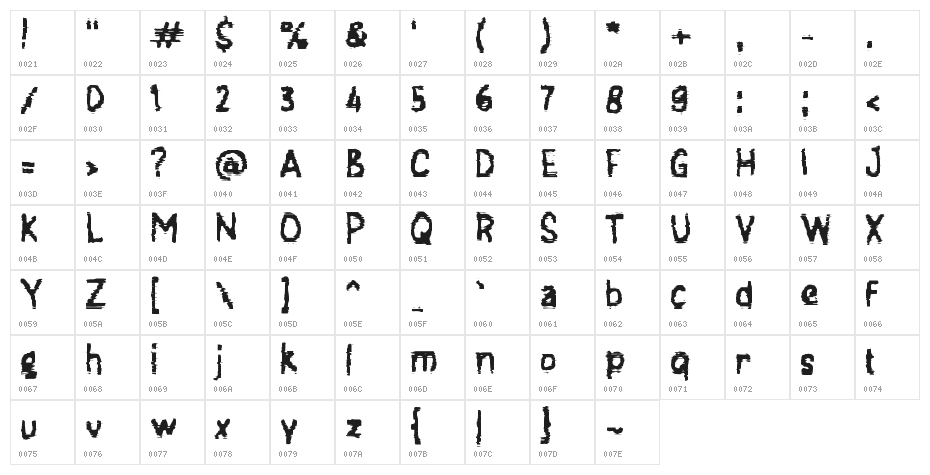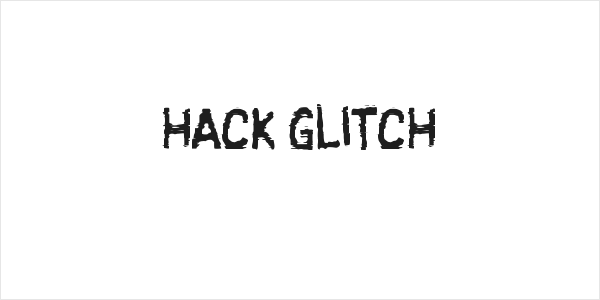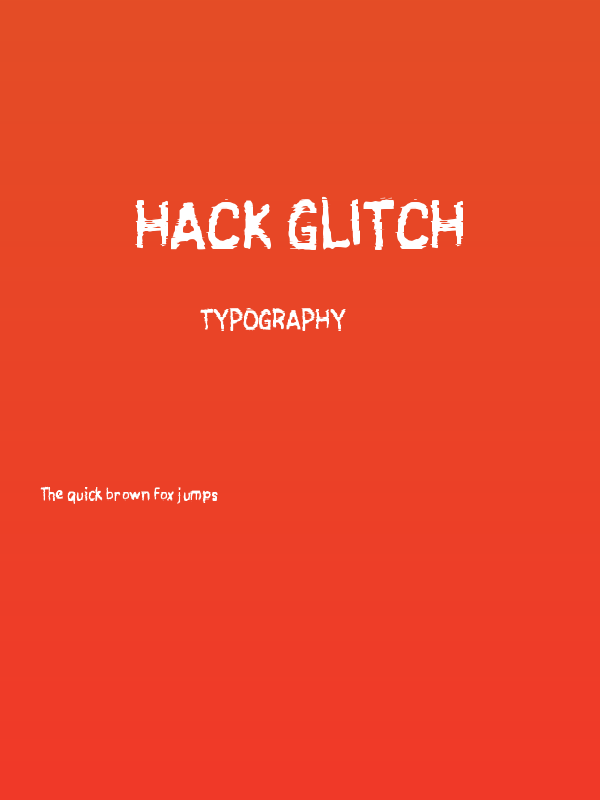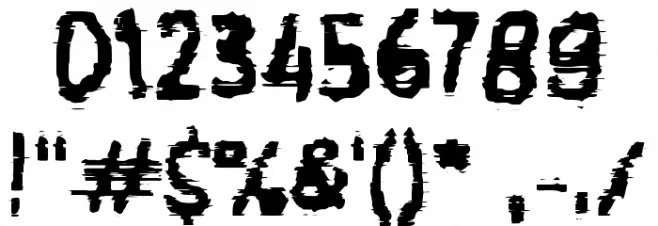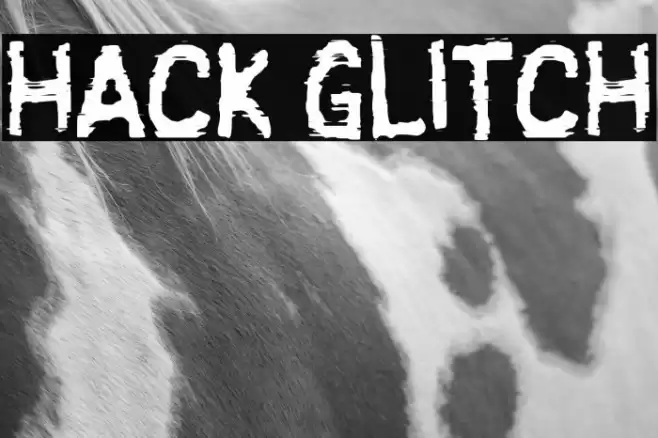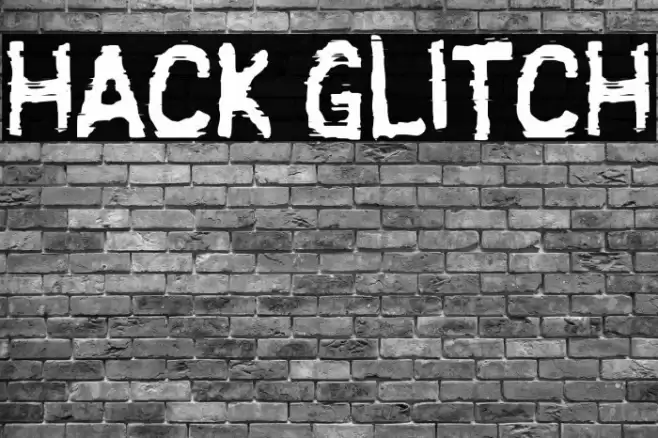
HACK GLITCH Font
HACK GLITCH Description
This font exhibits a unique, glitch-inspired design with a distressed and fragmented appearance. The characters are bold and irregular, giving a sense of digital distortion or interference. The uppercase and lowercase letters maintain a consistent style, with jagged edges and varying line thicknesses that create a dynamic and edgy look. Numbers and special characters follow the same aesthetic, ensuring a cohesive visual experience. This font is perfect for projects that aim to convey a sense of chaos, technology, or rebellion.
| Proposed Projects | Ideal for digital art, tech-themed posters, video game graphics, and edgy branding. |